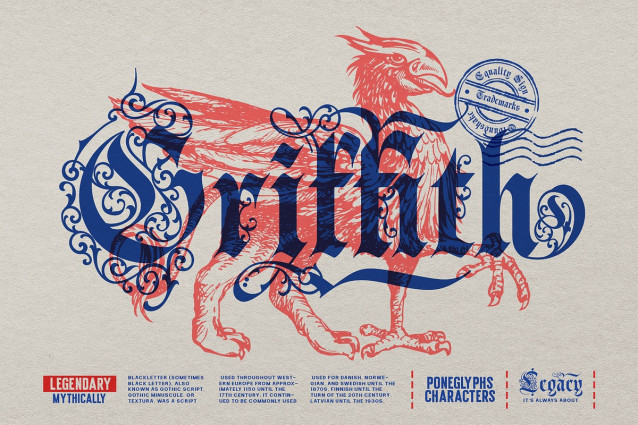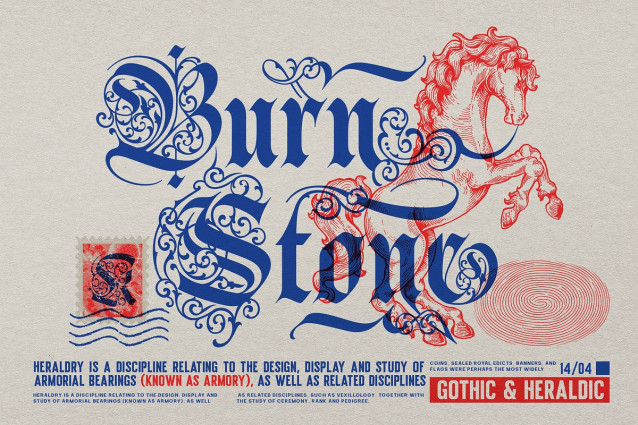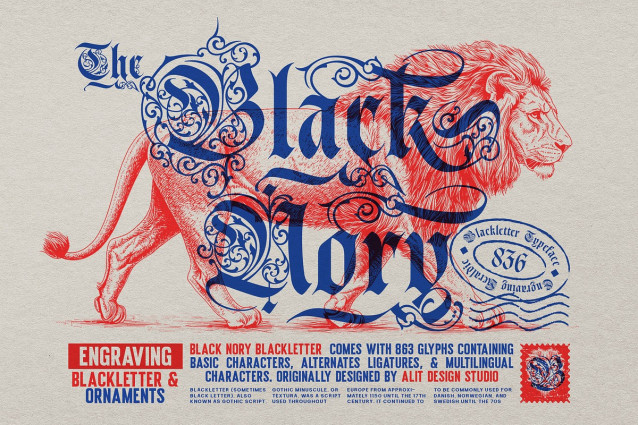
Black Nory Font
Black Nory Font, a beautifully detailed blackletter typeface that draws inspiration from the majestic scripts of ancient manuscripts, engraved books, and heraldic prints. This typeface is a modern homage to the age of ink-drenched parchment and meticulous craftsmanship, blending bold gothic shapes with delicate ornamental artistry.
Black Nory captures the essence of medieval and renaissance-era typography, bringing the look and feel of historical blackletter fonts into contemporary design. Its sharp, structured letterforms are adorned with swirling decorative elements that echo the splendor of illuminated books and royal decrees — perfect for anyone seeking a typeface with an authentic, sophisticated flair.
Whether you’re designing a logo, poster, album cover, book title, or packaging that calls for rich historical undertones, Black Nory offers the visual impact of hand-drawn craftsmanship combined with modern versatility.